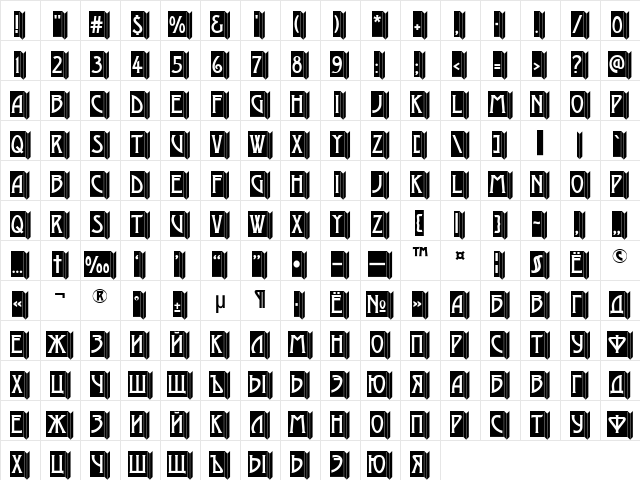
a_ModernoEmb Regular Free Font
a_ModernoEmb Regular
Design Context for a_ModernoEmb
a_ModernoEmb is a composed and adaptable typeface that performs quietly and consistently across a wide range of design contexts.